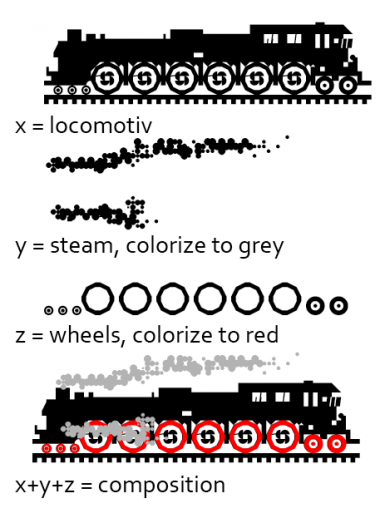
The HCRailway has locomotives under steam on key 1 - 9 ready to run. If you run with more than 100 wagons you should use an additional machine. ;)
The other keys are filled with wagons and parking steam- and diesellocomotives.
Some goodies you will find on x,y and z as shown at the pic.
space = empty railwaytrack
0 = buffer
We need a MEGA-Top-Pick category! 10/10!
Now THIS is awesome! I like the "FONTSTRUCT" wagon. Nice. 10/10+fav
Awesome railway idea. 10/10.
Certainly your most impressive project to date, with lots of excellent details. I can only guess at the enormous amounts of time you must have given this.
Sure is a Fontstruct Classic!
This contains all the wealth of detail that we have come to expect from your work. Plus, as always, it is great fun. 10/10++++++++++
Congratulations! FontStruct Staff have deemed your FontStruction worthy of special mention. “HCRailway” is now a Top Pick.
I wish more of the zapf dingbat and picture fonts were this good!
This is REALLY cool!!!
Its difficult to read lol
How did I miss this?? It is fabulously clever. I'll use it when my grandson wants to do "work like gamdy" :)))
choo choo!